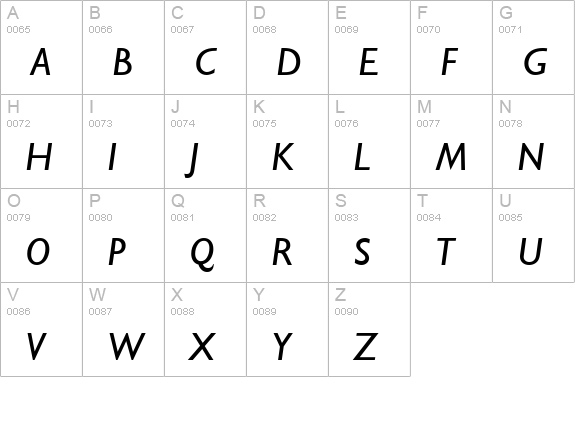
Chantilly-Medium-Italic Font Details
Chantilly-Medium-Italic is a balanced, medium-weight, italic variant in the Chantilly typeface family \xE2\x80\x94 well suited to sub-headlines, navigation, and balanced editorial work.
Chantilly-Medium-Italic font is a stylish and elegant typeface that exudes sophistication and charm. Its slanted design adds a touch of flair to any project, making it perfect for adding a touch of class to your designs. The medium weight strikes a perfect balance between boldness and elegance, making it versatile for a wide range of applications. Best of all, Chantilly-Medium-Italic font is available for free download at FontsMarket.com. You can easily access this beautiful font and enhance your projects with its unique and captivating appearance. Whether you are designing a logo, creating invitations, or crafting a website, Chantilly-Medium-Italic font is sure to make a lasting impression. Download it today and elevate your designs with this stunning typeface.